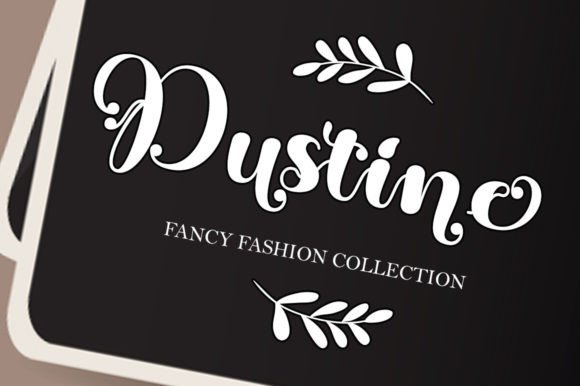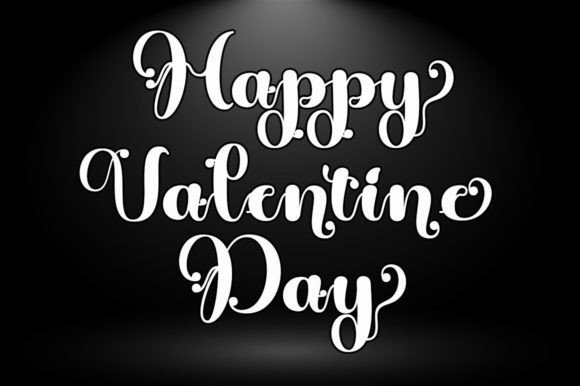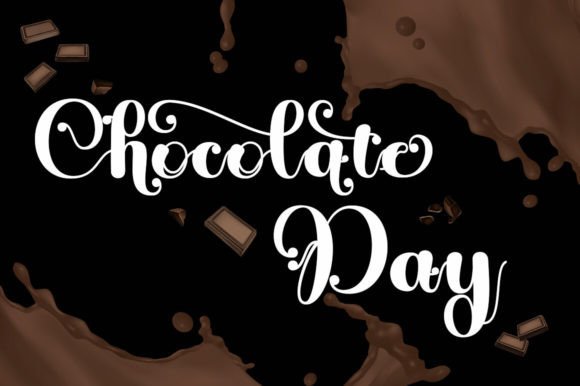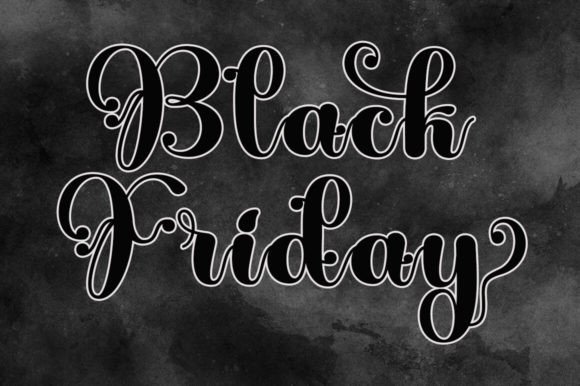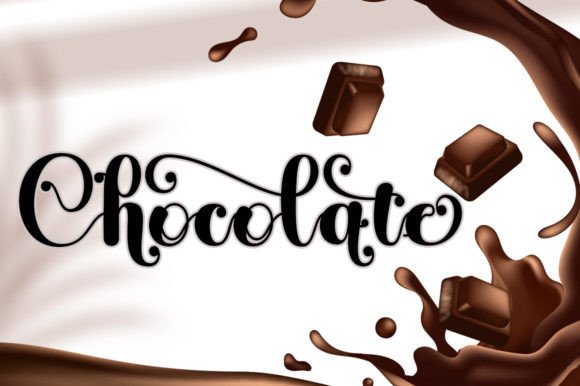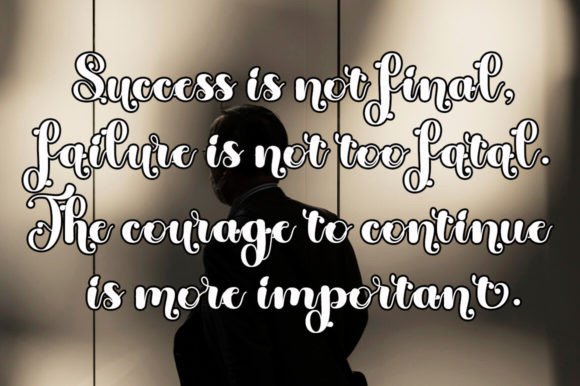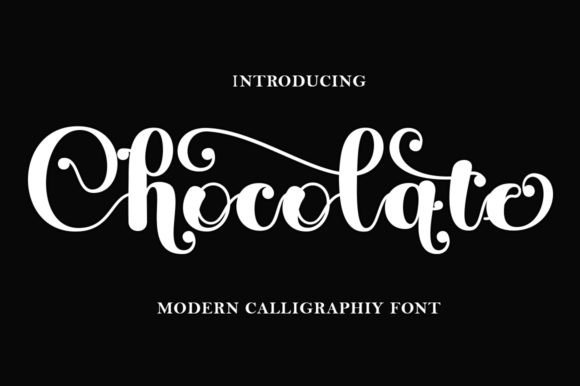
Introducing Chocolate Font: The Elegant Calligraphy Script for Your Designs
Are you looking for a font that adds a touch of sophistication and luxury to your designs? Look no further than Chocolate Font, an elegant calligraphy script font that brings a sweet and charming feel to your text. With its graceful strokes and flowing curves, Chocolate Font is perfect for designers and crafters who want to elevate their typography and create stunning visual content.
The Characteristics of Chocolate Font
Chocolate Font is a beautifully crafted calligraphy script font that boasts a range of characteristics that make it perfect for a variety of design projects. Some of its key features include:
- Elegant strokes: Chocolate Font features smooth, flowing strokes that give it a luxurious and sophisticated feel.
- Flowing curves: The font’s curves are carefully crafted to create a sense of movement and fluidity, making it perfect for designs that require a touch of elegance.
- Charming and sweet: Chocolate Font has a playful and charming personality that makes it perfect for designs that require a touch of whimsy and fun.
Perfect for Invitations, Cards, and More
Chocolate Font is a versatile font that can be used for a wide range of design projects, from invitations and cards to branding and packaging. Its elegant and sophisticated feel makes it perfect for:
- Wedding invitations: Add a touch of luxury and romance to your wedding invitations with Chocolate Font.
- Birthday cards: Create beautiful and personalized birthday cards with Chocolate Font’s charming and playful personality.
- Branding and packaging: Use Chocolate Font to add a touch of elegance and sophistication to your brand’s packaging and marketing materials.
Why Choose Chocolate Font?
With so many fonts to choose from, why should you choose Chocolate Font for your designs? Here are just a few reasons:
- Unique and distinctive: Chocolate Font has a unique and distinctive personality that will set your designs apart from the crowd.
- Easy to read: Despite its elegant and cursive nature, Chocolate Font is surprisingly easy to read, making it perfect for designs that require a clear and legible font.
- Fun and playful: Chocolate Font has a fun and playful personality that makes it perfect for designs that require a touch of whimsy and charm.
Tips for Using Chocolate Font
Here are a few tips for getting the most out of Chocolate Font:
- Use it sparingly: Chocolate Font is a bold and elegant font, so use it sparingly to add emphasis and impact to your designs.
- Pair it with contrasting fonts: Pair Chocolate Font with contrasting fonts, such as sans-serif fonts, to create visual interest and hierarchy.
- Experiment with colors and textures: Chocolate Font looks great in a range of colors and textures, so don’t be afraid to experiment and find the perfect combination for your design.
Chocolate Font is a beautiful and elegant calligraphy script font that adds a touch of sophistication and luxury to any design. With its flowing curves, elegant strokes, and charming personality, it’s perfect for designers and crafters who want to create stunning visual content. Whether you’re designing invitations, cards, or branding materials, Chocolate Font is the perfect choice for adding a sweet and subtle touch to your typography.
So why not give Chocolate Font a try and see how it can elevate your designs to the next level?